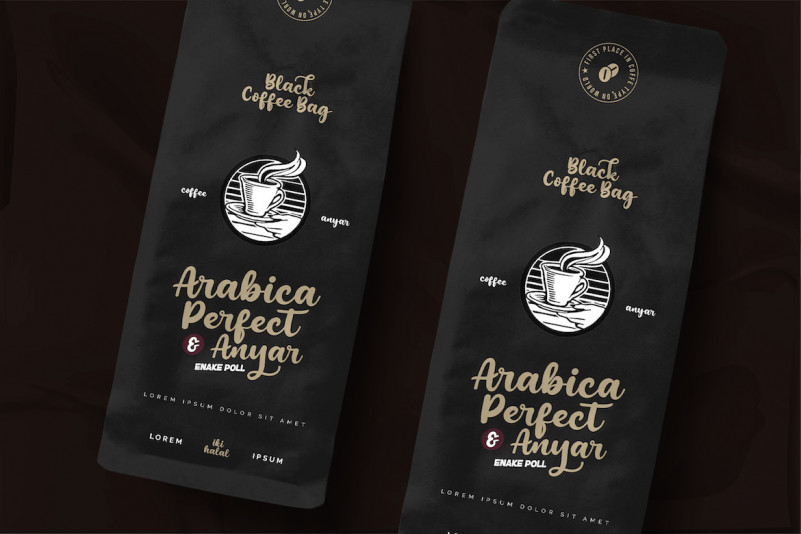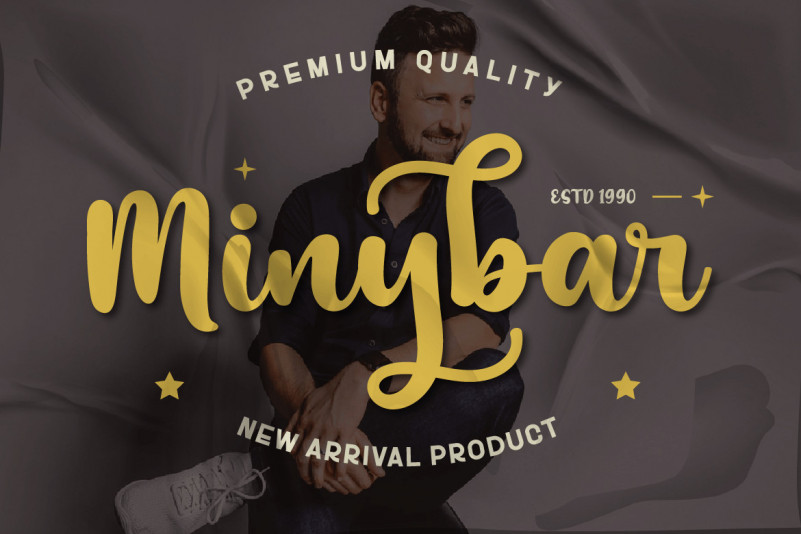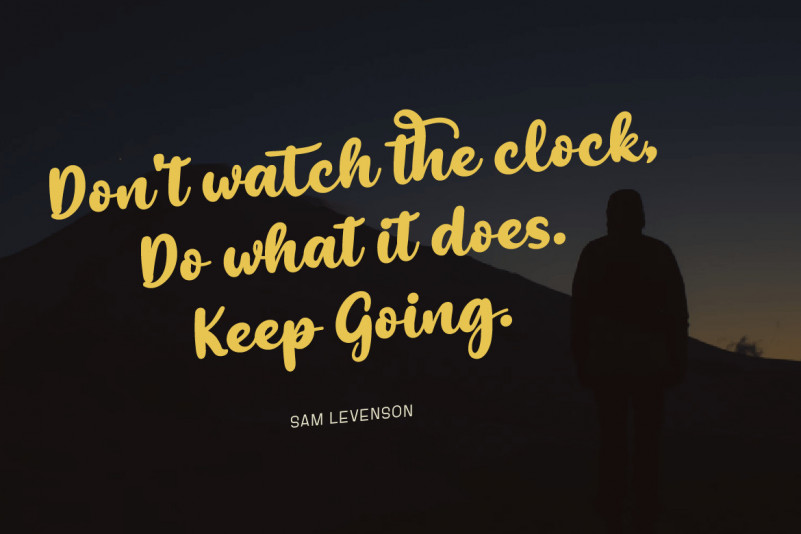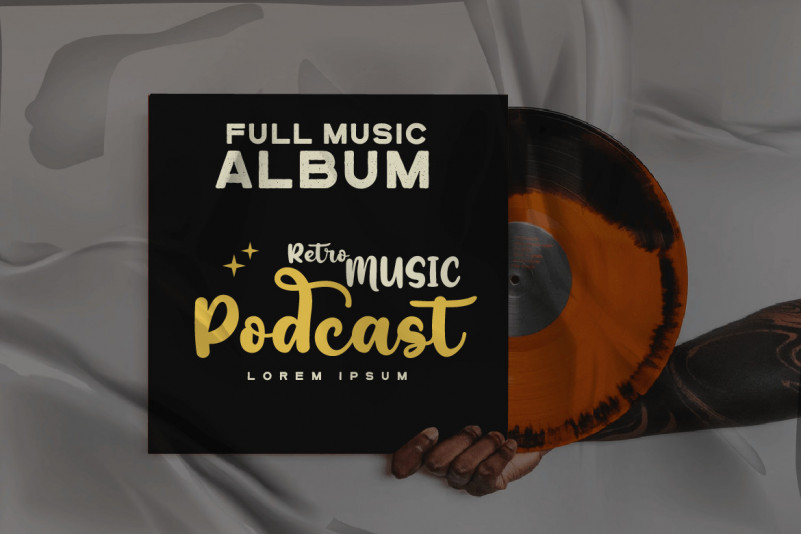
Andesytes Font
Andesytes Script Font
This is a script font that is made by paying attention to every anatomical shape of the letter, so it looks neat and elegant when used. This font designed with natural hand touch has alternative features, ligatures and also supports multi-language,
This font is designed with a natural touch of handwriting refined to create portions and compositions that suit your needs. So this font is perfect for crafts, logotypes, posters, titles, banners, wedding invitations, product packaging logos, quotes, social media page covers, book covers, and more.